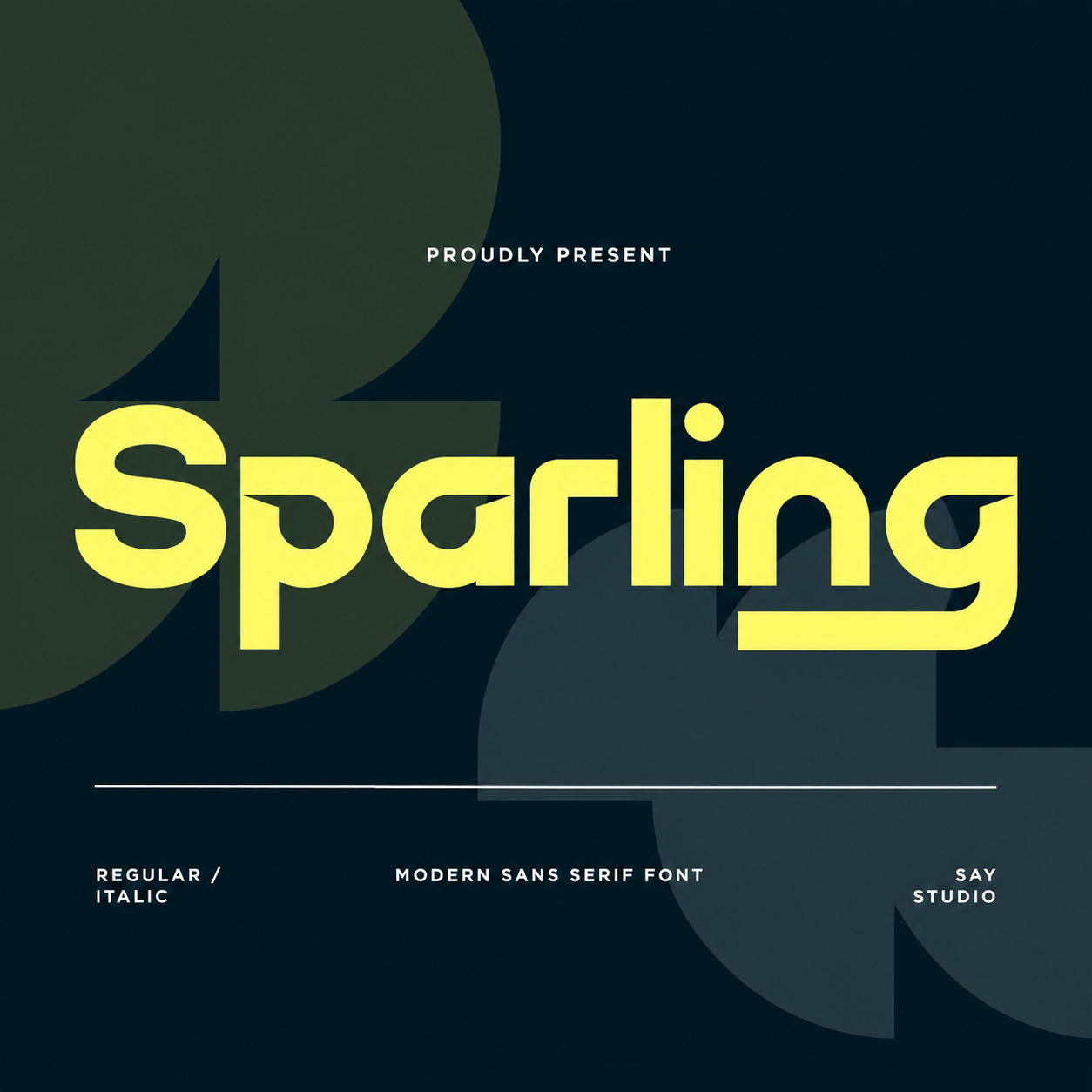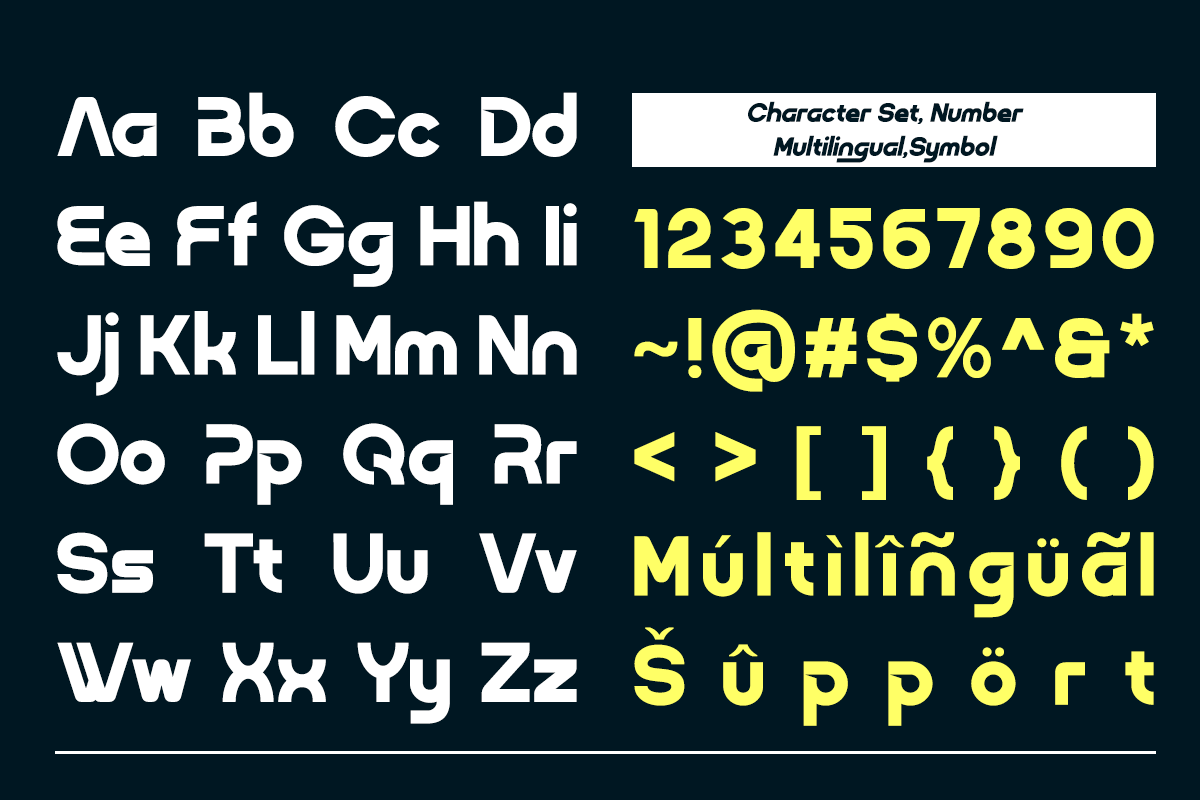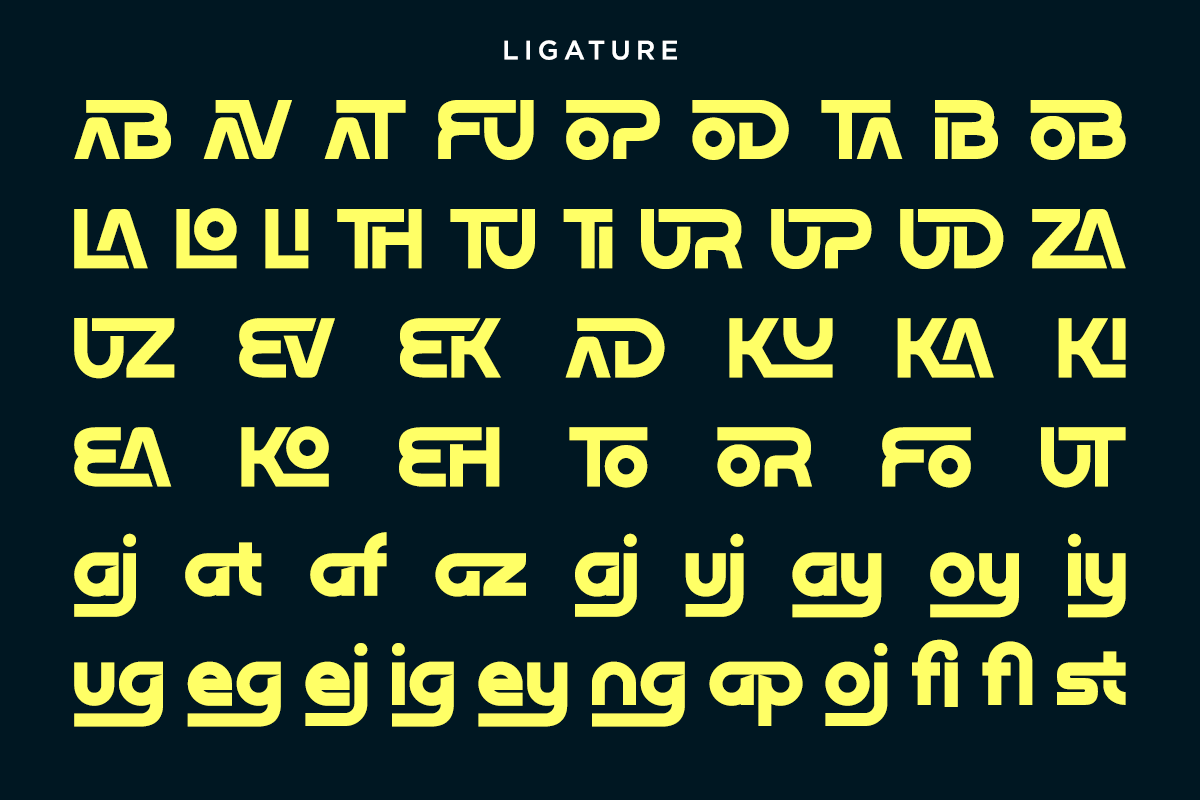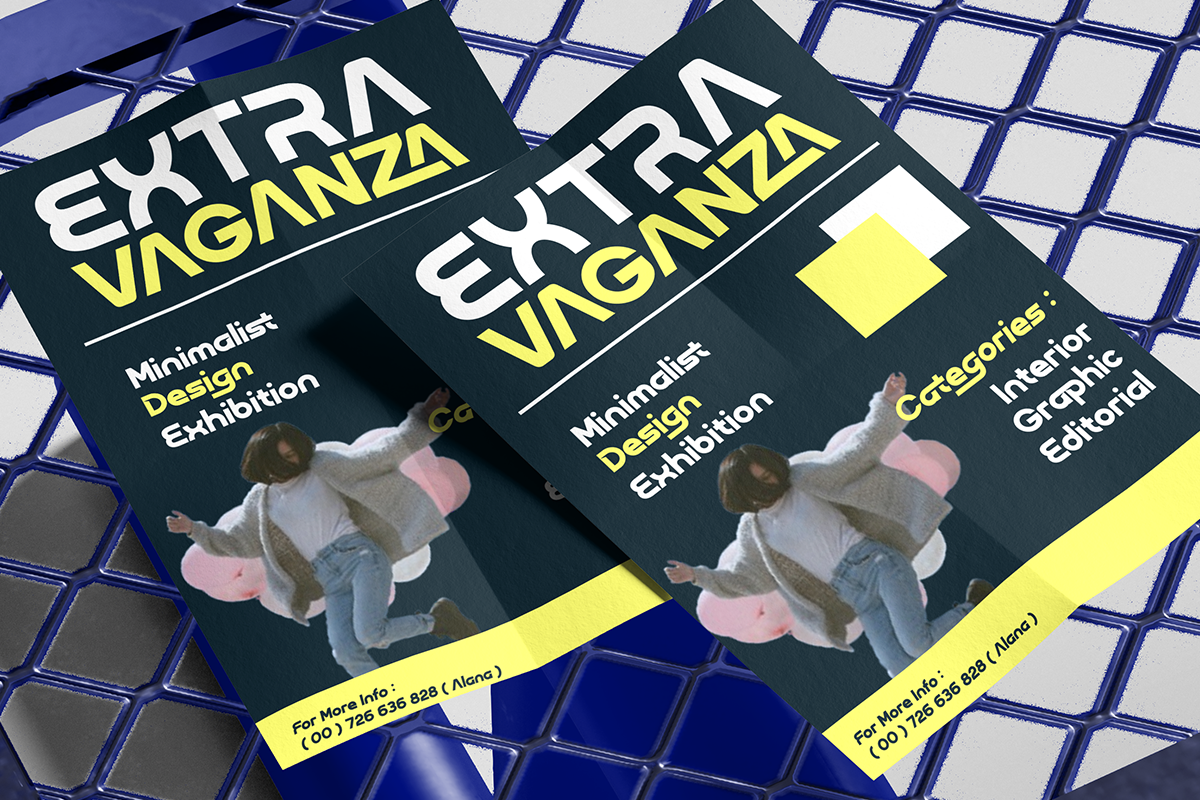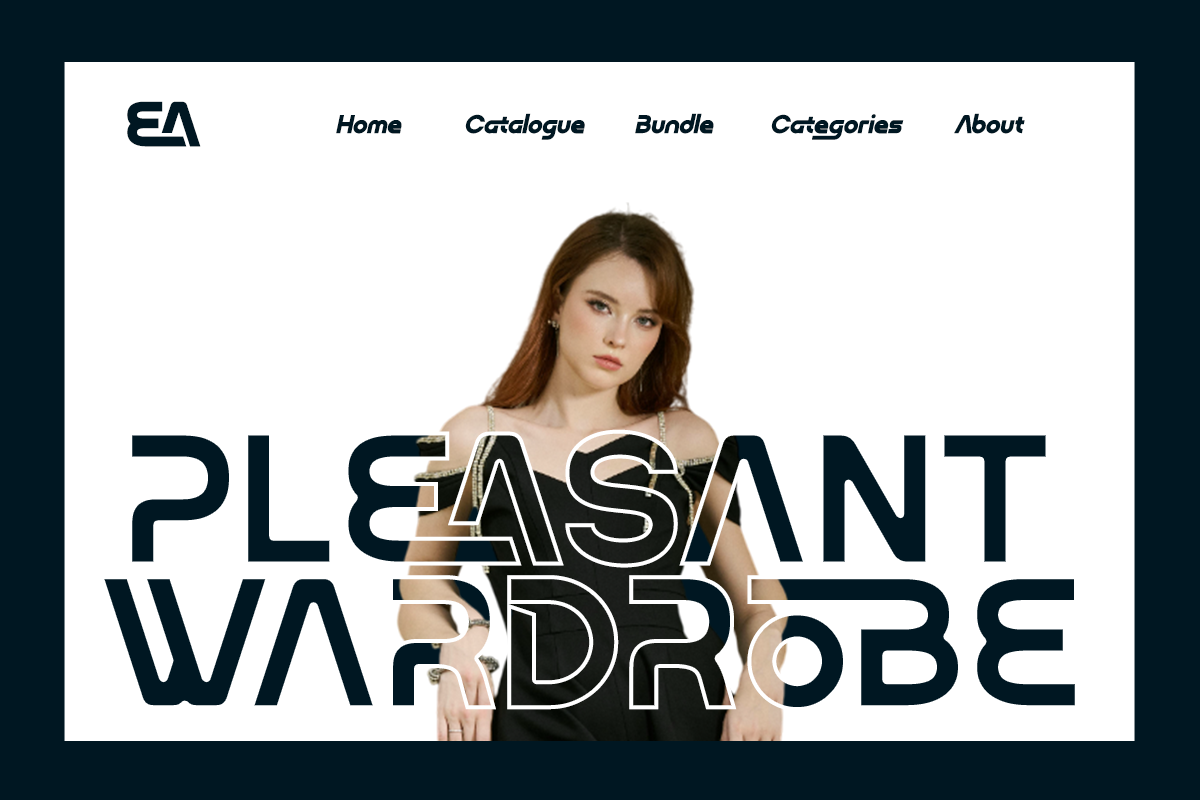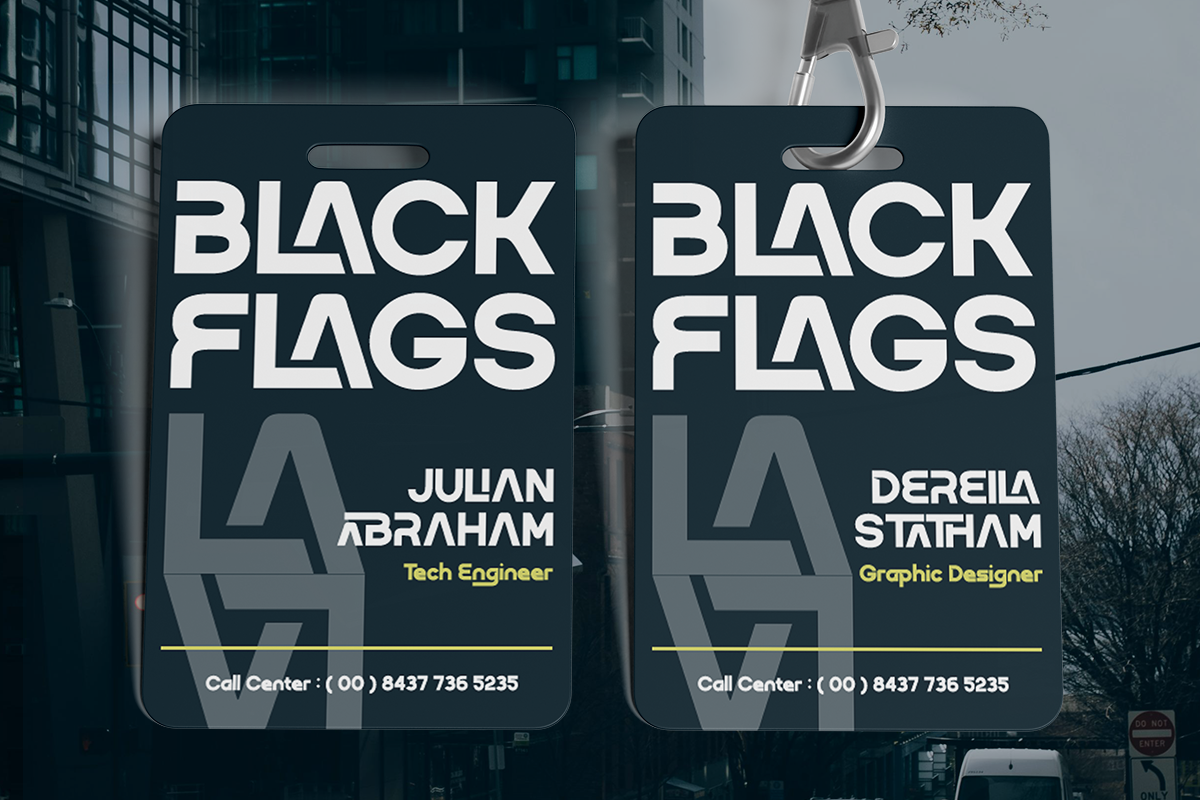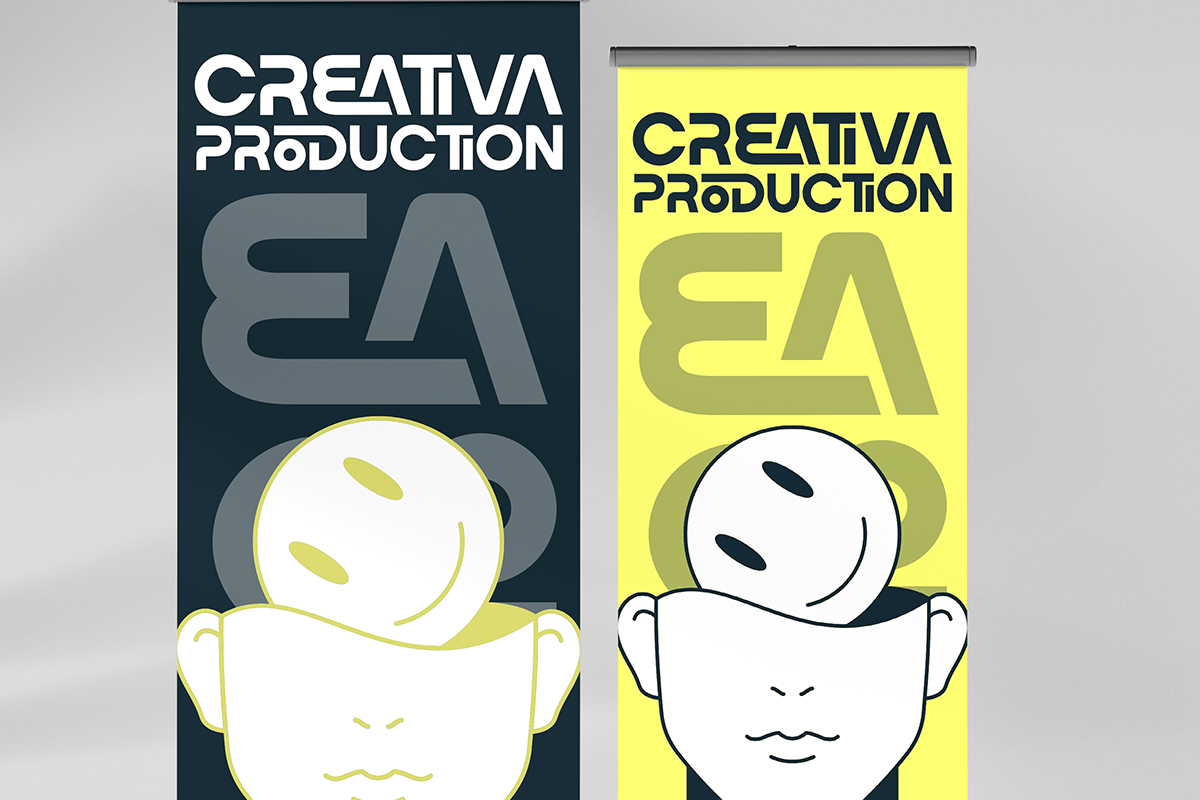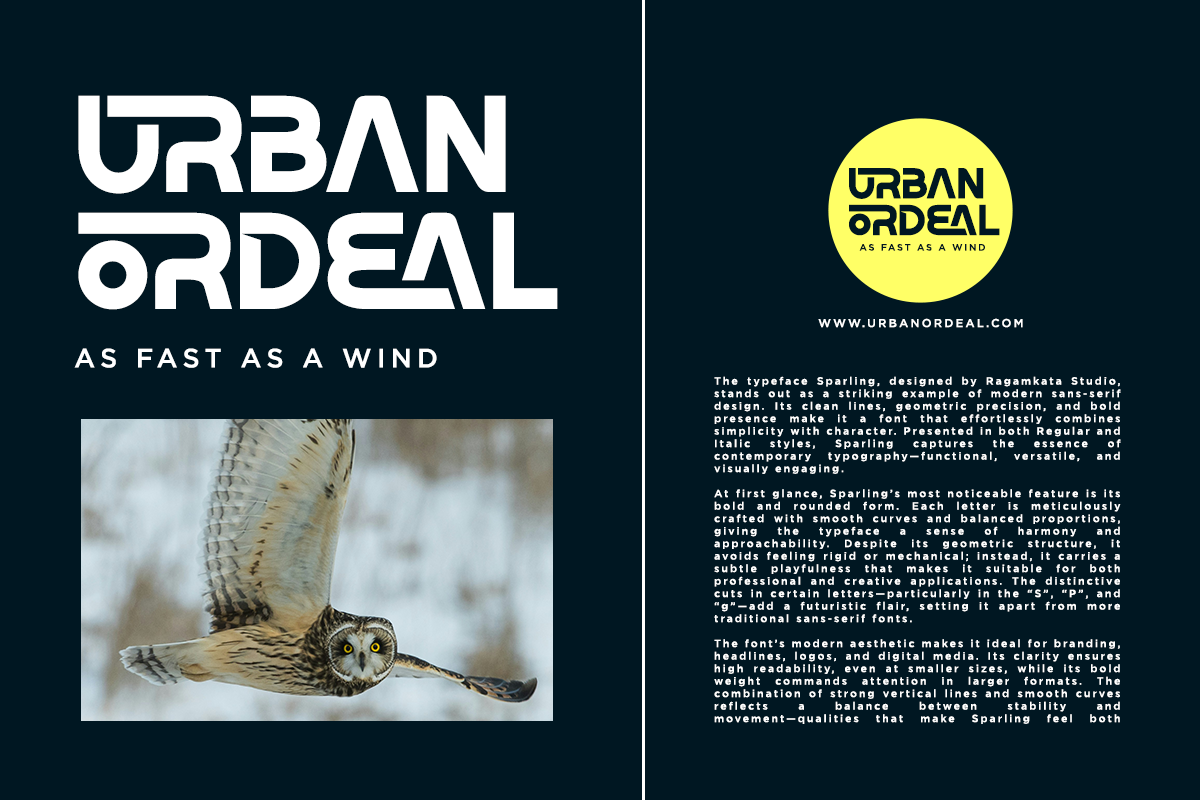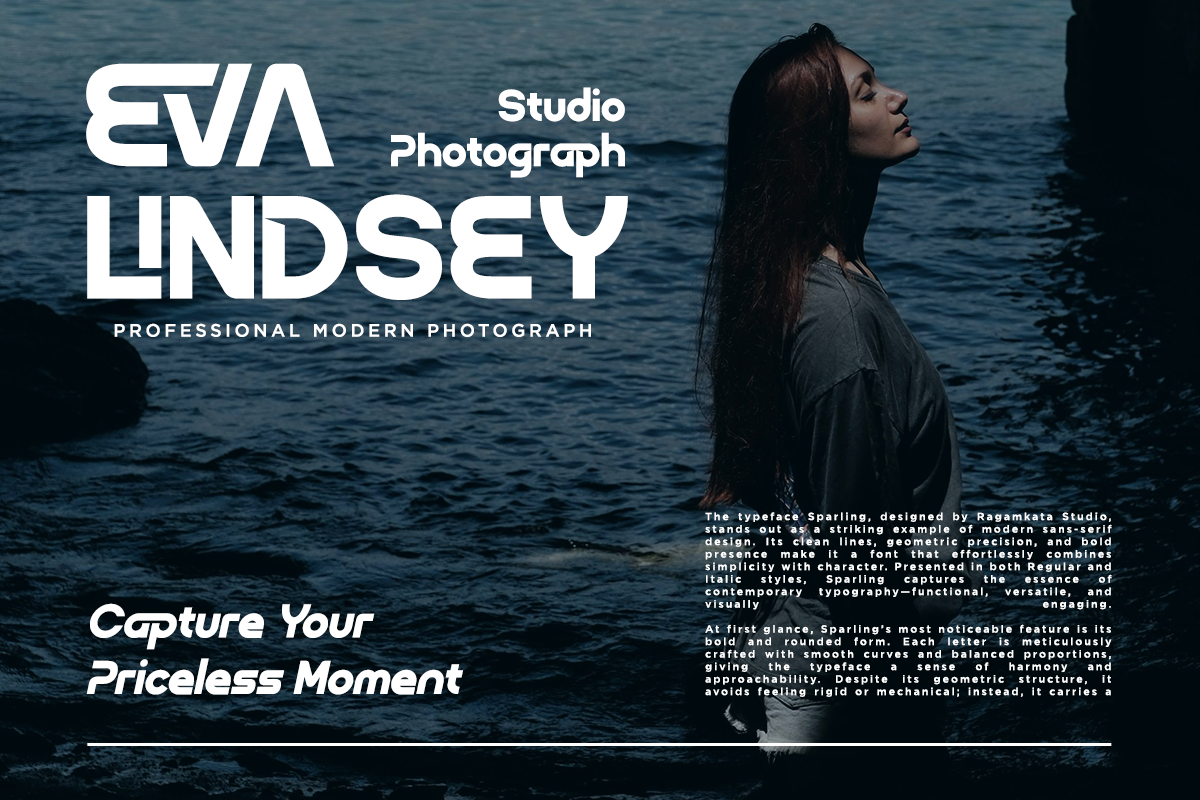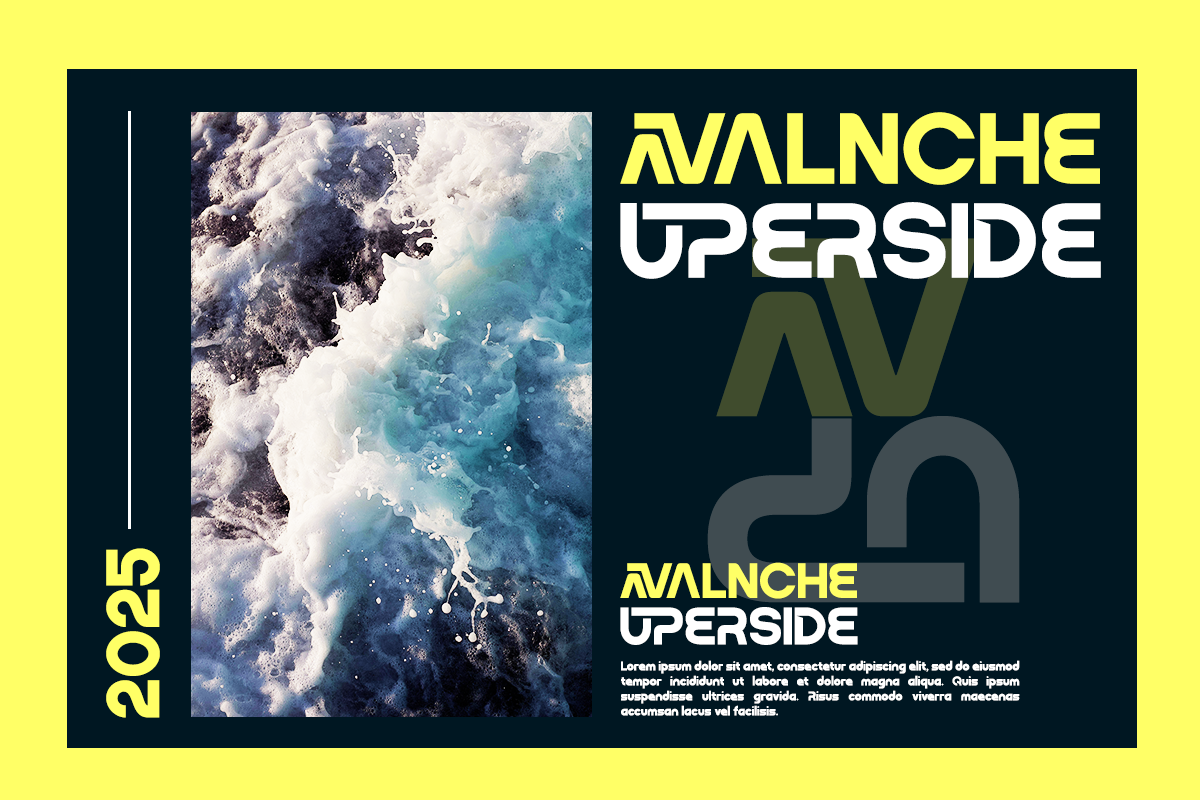
Sparling - Futuristic Tech Sans Serif Font
Sparling is a futuristic modern sans serif font that combines geometric precision with smooth rounded forms, creating a distinctive typeface that feels innovative, clean, and highly versatile. Its unique ligatures and custom letter constructions deliver a strong visual identity while maintaining excellent readability, making it perfect for designers who want bold typography with a contemporary edge.
Designed for branding and creative projects, Sparling effortlessly adapts to logos, posters, editorial layouts, websites, packaging, fashion campaigns, technology startups, UI design, architecture presentations, and social media graphics. The balanced proportions and stylish alternates allow every composition to appear modern, premium, and memorable.
Featuring Regular & Italic styles, multilingual support, numbers, punctuation, symbols, and an extensive collection of ligatures, Sparling offers maximum creative flexibility for professional designers. Whether you're building a futuristic brand identity or creating minimal editorial layouts, this typeface delivers a sophisticated aesthetic that stands out across both print and digital media.
• Regular and Italic
• Stylistic Ligatures
• Uppercase and Lowercase
• Number, Symbol, and Punctuation
• Multi Language Support